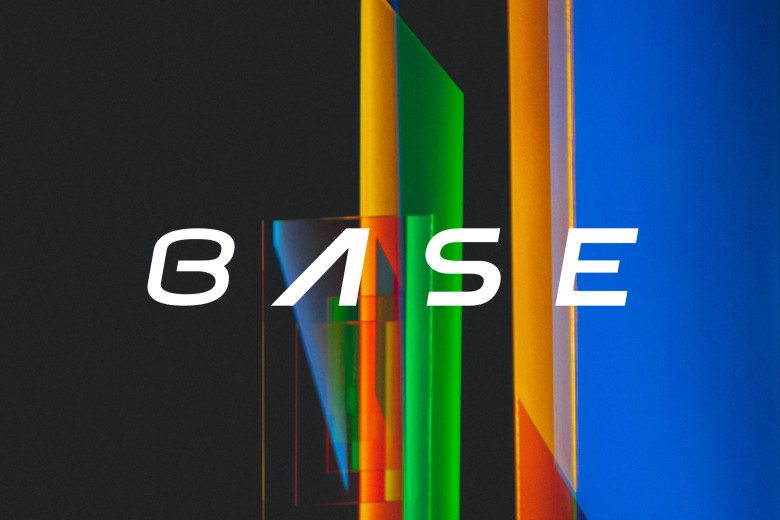
Rint Basic Font
Rint Basic Font – the font is created for the effective work with computers and the comfortable reading. Each and every font is designed to look crisp on all screen sizes ranging from desktop to the mobile devices. All the layouts are very light, which will mean that the pages load quickly; the simple shapes will communicate your message immediately with great effect.
Rint Basic Display Font